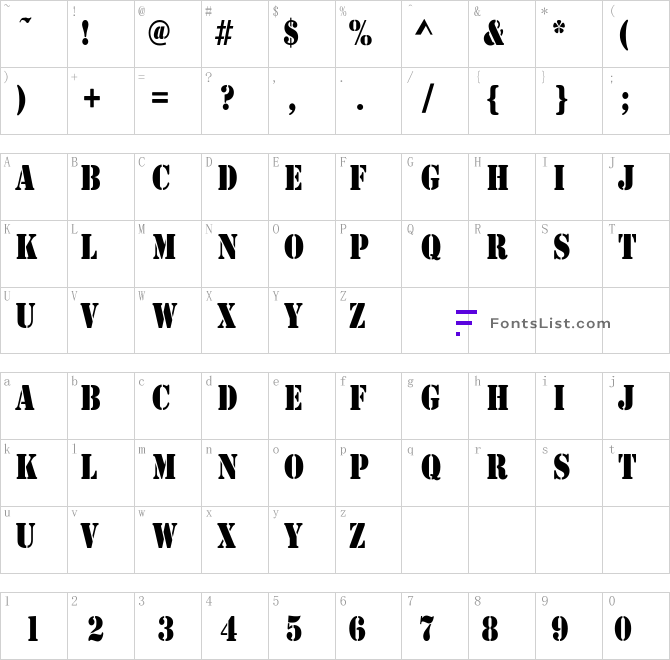
- Font Name:Army Thin
Army-Thin.ttf is a very beautiful artistic font, Army-Thin.ttf is widely used in the design and printing of various books and pictures,Army-Thin.ttf has a strong visual impact,Army-Thin.ttf is a commonly used font in newspapers, magazines and books, and is used in posters, e-commerce Poster design, store design, logo design, font design and other fields.Army-Thin.